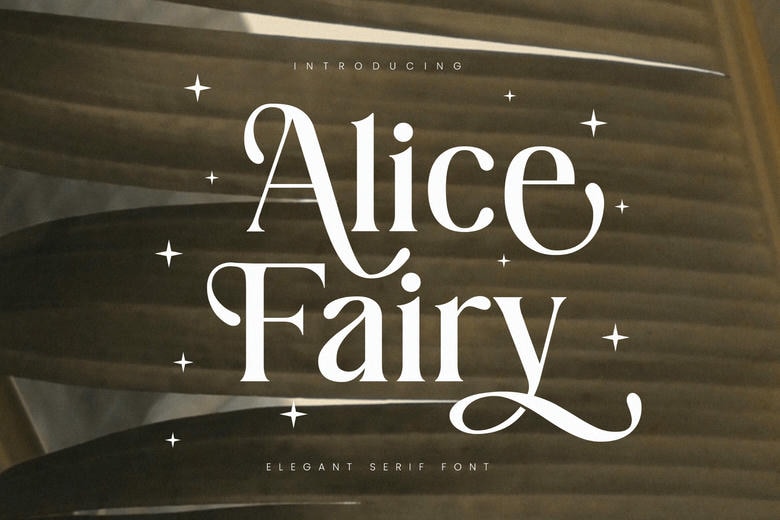
Alice Fairy Font
Alice Fairy is an elegant and neutral serif typeface ideal for anyone who wants to refine their designs. I love this one with its beautiful alternates and the decorative tails are perfect for logos, websites, magazine, posters, wedding invitations, and more.
In both cases whether you are looking for something romantic or something professional this particular font will be perfect for you. Moreover it is quite simple with numerous languages support so it can be used in a broad range of projects.
Alice Fairy Serif Font